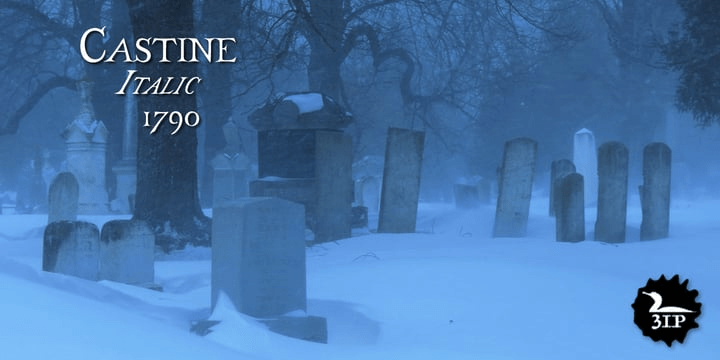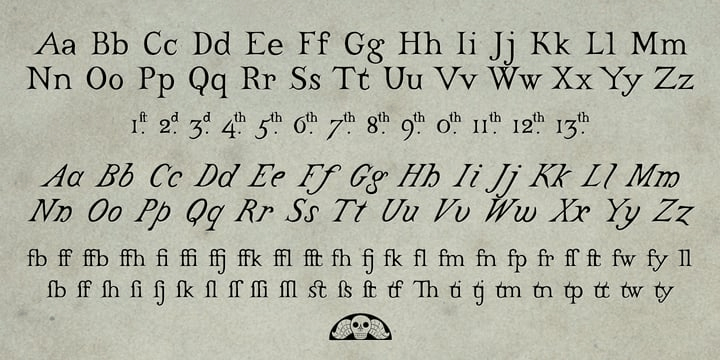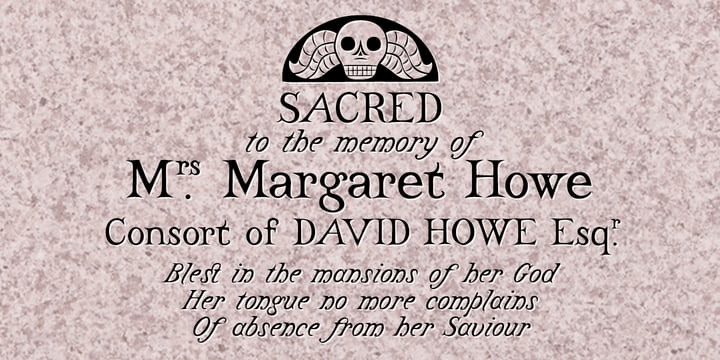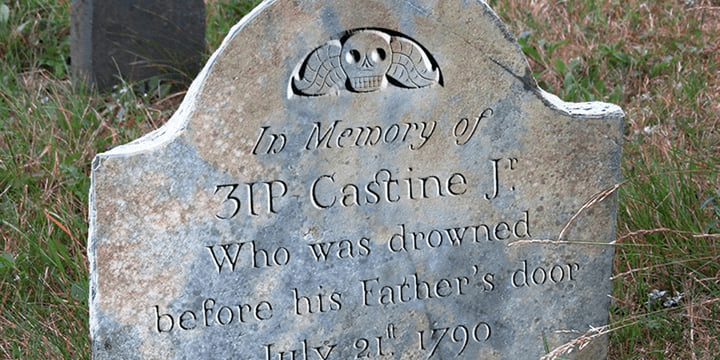
Castine
There's a cemetery in Castine, Maine, a lovely coastal town perhaps best known for Maine Maritime Academy and a surviving crop of stately old American elms, with headstones dating back into the 18th century -- the standard old headstone shape, often topped by winged skulls.
Thanks to a local historical society volunteer, I got my hands on a couple rubbings; these show a particular style of stonecarving that proved captivating to the point of typeface design.
Castine has a full character set in both roman and italic styles.